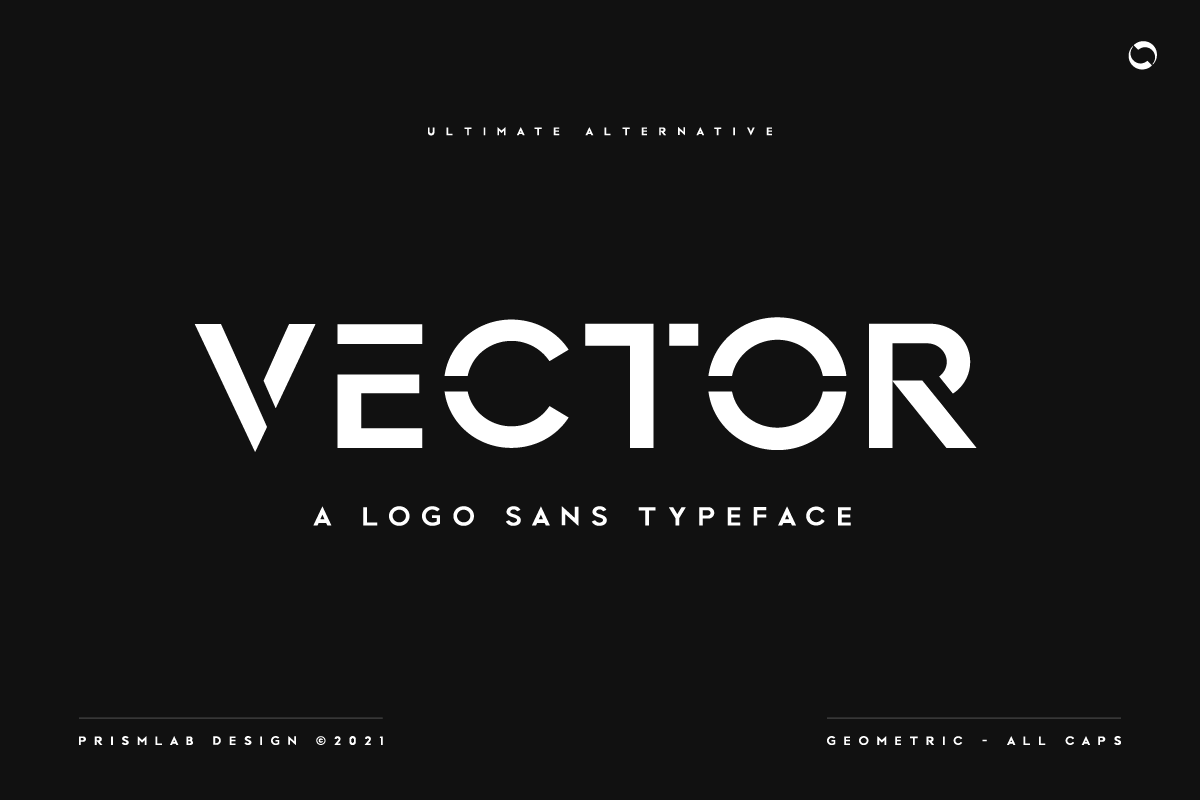
Vector | A Logo Sans Typeface
Vector Is A Logo Sans Typeface Inspired By Strong And Powerful Character. Bold And Sharp With Smooth Textures. Suitable With Your Business And Modern Company.
- Vector Regular .Sharp and Edgy
- Vector Italic .Thin and Playful
- Vector Bold .Strong and Powerful
- Vector Bold Italic .Thick and Elegant